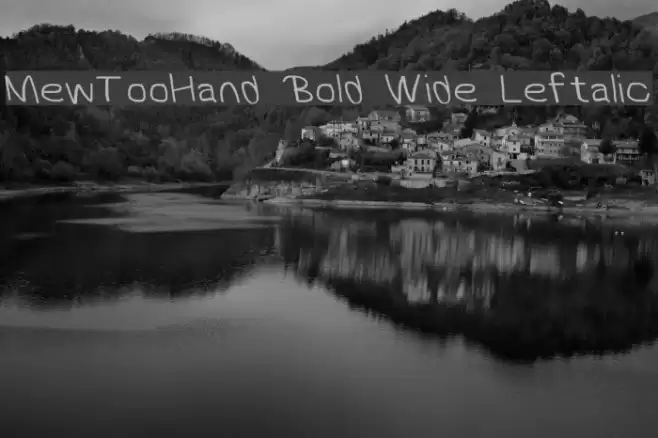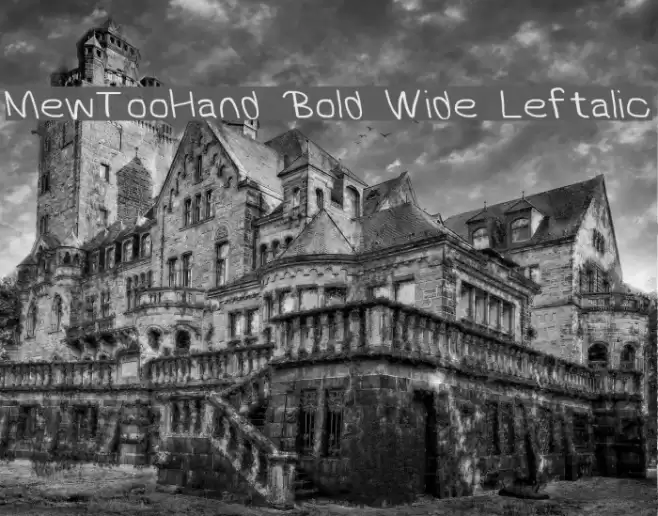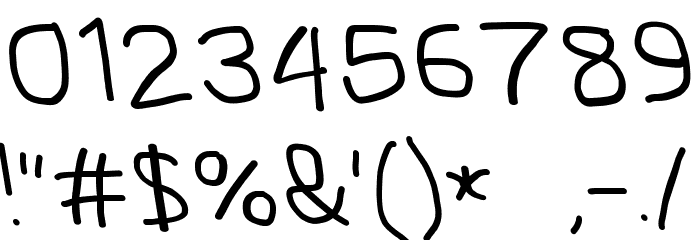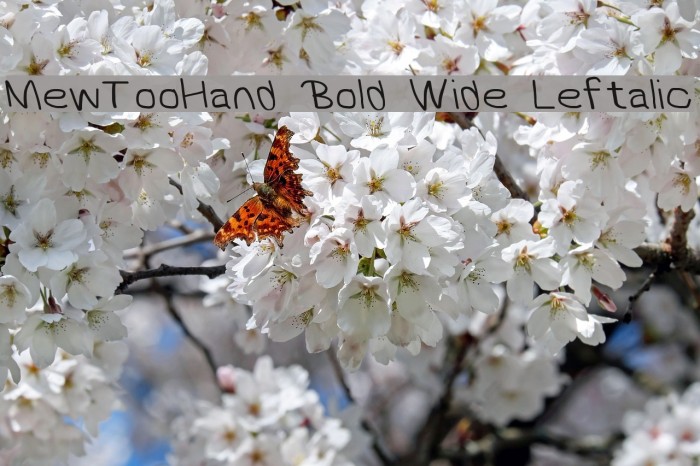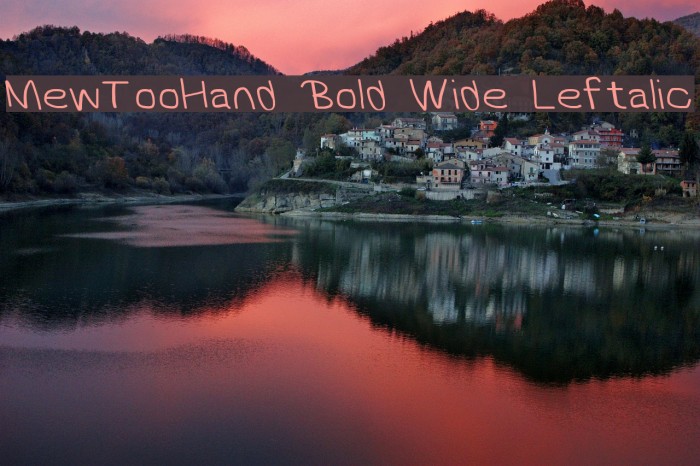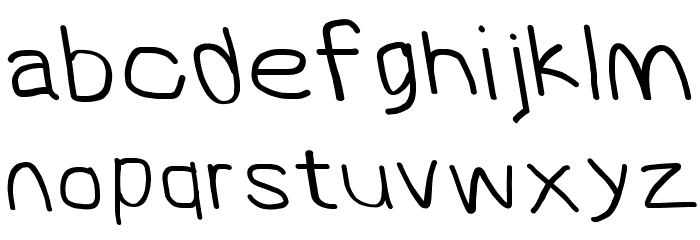
MewTooHand Bold Wide Leftalic Font
MewTooHand Bold Wide Leftalic Description
This playful and quirky font features a handwritten style with a bold and wide appearance. The characters have a slight leftward slant, giving them a unique and informal look. The strokes are consistent in thickness, providing a uniform appearance across all characters. The font includes a full set of uppercase and lowercase letters, numbers, and a variety of special characters. Its casual and friendly design makes it suitable for projects that require a personal touch or a fun, approachable vibe.
A bold, wide, handwritten font with a playful leftward slant from Uncategorized fonts.
- Proposed Projects: Ideal for children's books, greeting cards, casual branding, and playful social media graphics.
- Overall Style: Playful
- Use Case: Headlines, Informal text, Creative projects